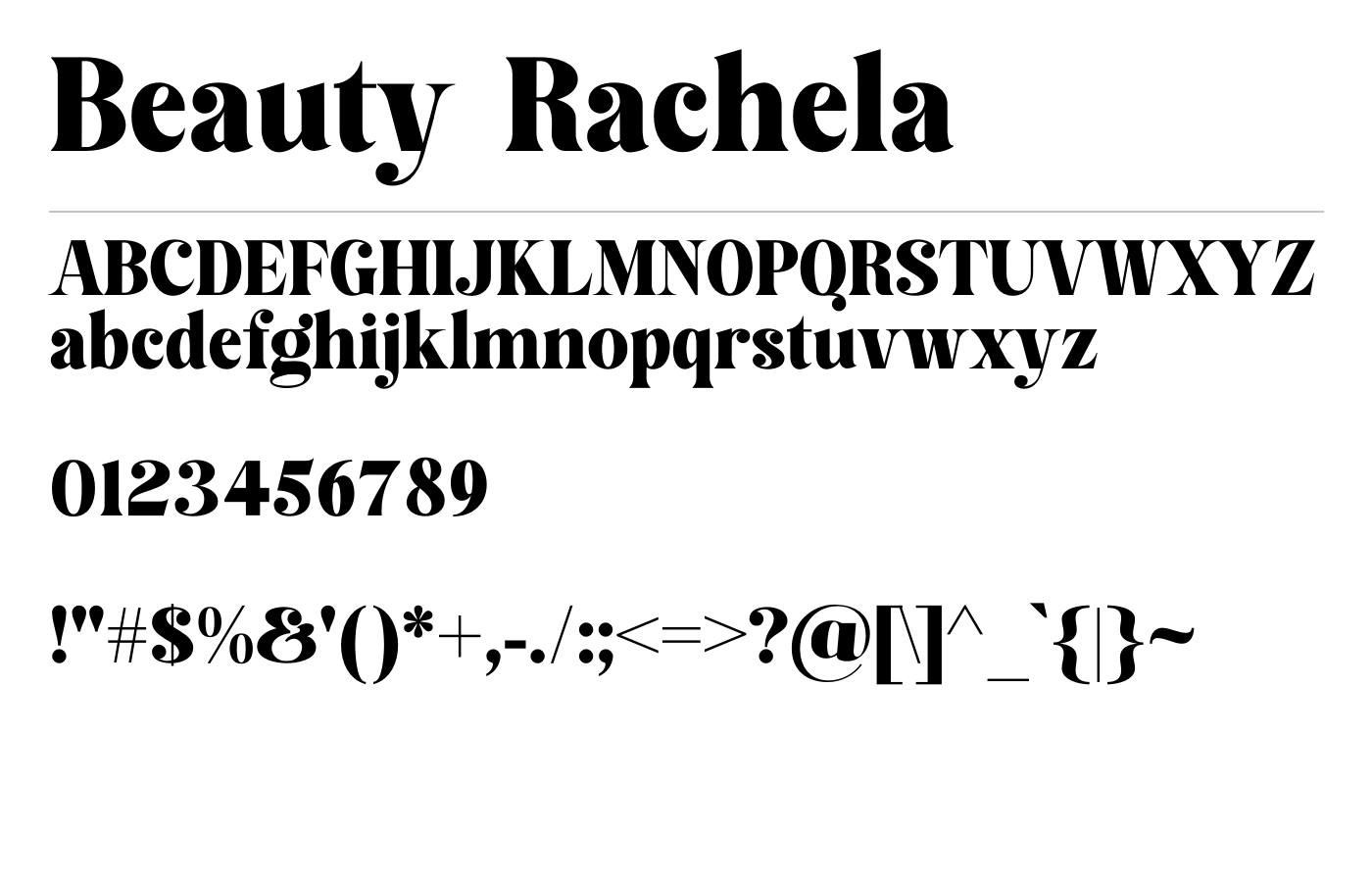
Beauty Rachela is a bold serif font that combines strong contrast between thick and thin strokes with elegant, bracketed serifs, giving it a refined and luxurious feel. Its high x-height and distinctive letterforms, like the playful curled terminals on the lowercase letters, make it perfect for fashion branding, editorial headlines, and stylish logos that need a touch of sophistication and modern charm. This font stands out best in designs that aim to convey confidence and elegance with a contemporary twist.
Beauty Rachela Font
About Beauty Rachela Font